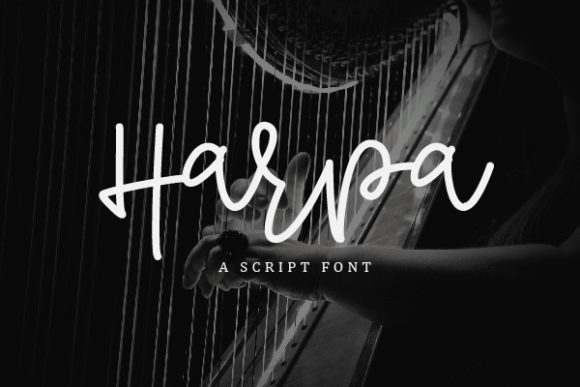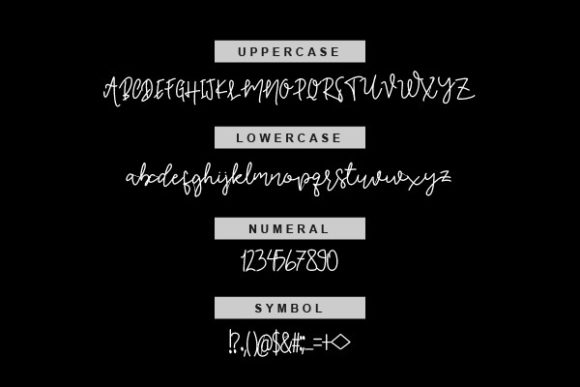
Harpa Font
About Harpa Font
Harpa is a whimsical, relaxed and quirky handwritten font. This font was particularly crafted for those who need a beautiful and refreshing look to their designs.